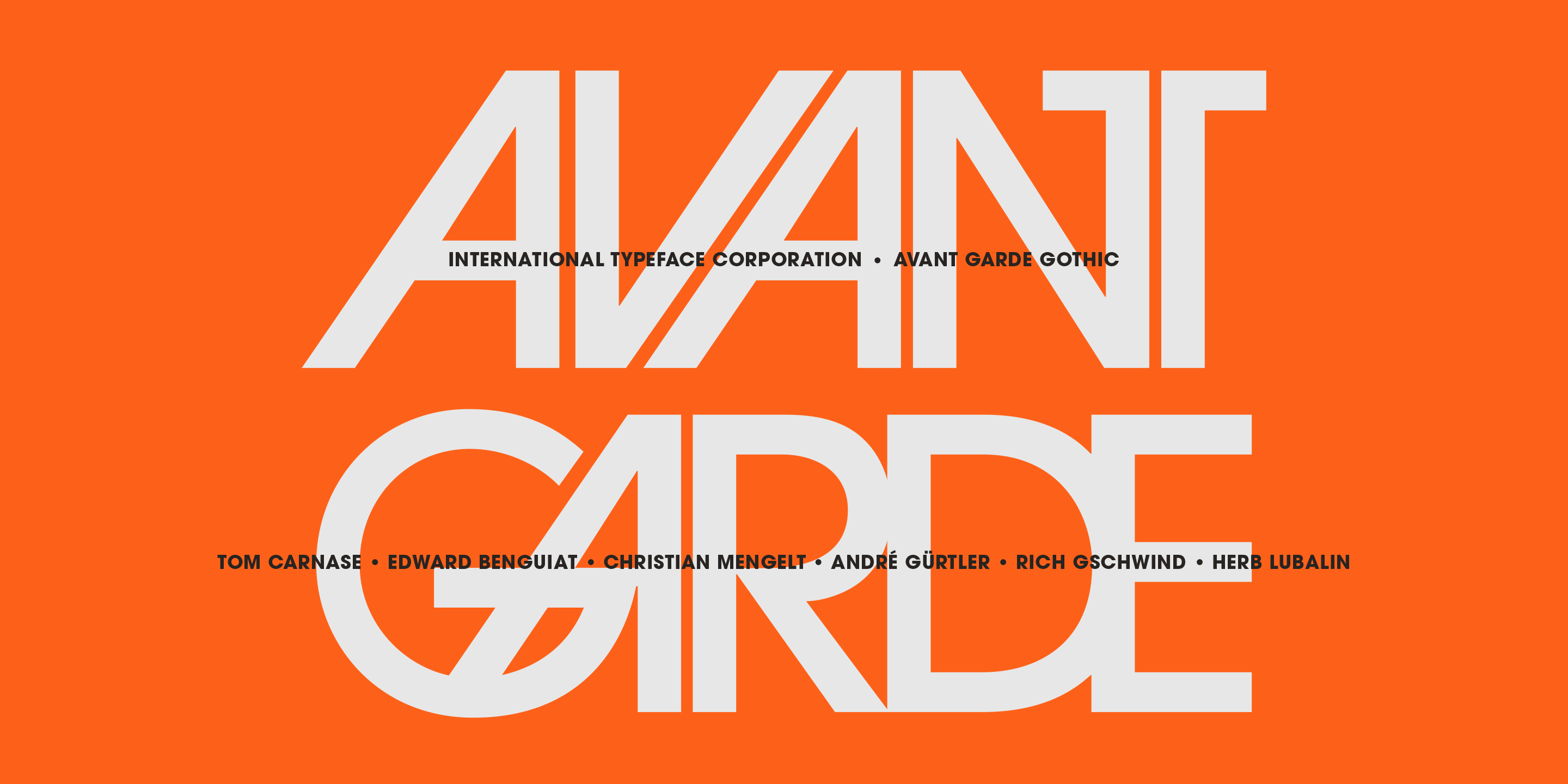
The ITC Avant Garde Gothic Font excels in various design applications including modernist architectural branding, progressive art gallery communications, avant-garde fashion campaigns, contemporary museum exhibitions, innovative technology startups, cutting-edge editorial design, forward-thinking corporate identities, experimental poster art, minimalist web interfaces, and revolutionary brand systems that demand geometric precision and artistic sophistication.
What makes the ITC Avant Garde Gothic Font exciting is its revolutionary interpretation of geometric typography principles that established new standards for modernist design through perfectly balanced circular forms and mathematical precision. This typeface represents a landmark achievement in typographic history, featuring iconic letterforms based on fundamental geometric shapes that create exceptional visual harmony and timeless appeal. The font's avant-garde character makes it perfect for brands seeking to communicate innovation, artistic vision, and progressive thinking through typography that has influenced generations of designers worldwide.
The ITC Avant Garde Gothic Font family typically includes comprehensive weight variations from light to extra bold, featuring corresponding oblique styles and extensive ligature collections that enhance the geometric aesthetic. These family members often include condensed variants, alternate characters, and specialized glyphs that maintain the signature geometric harmony while providing designers with versatile tools for creating sophisticated modernist typography that honors the font's revolutionary heritage.
Design professionals and modernist brands consistently select ITC Avant Garde Gothic Font Free Download for projects requiring typography that embodies artistic excellence and progressive design philosophy. This typeface delivers exceptional performance in contemporary art contexts, architectural communications, and innovative brand development where geometric purity and modernist aesthetics are essential for establishing creative credibility. The font's historic significance makes it particularly valuable for projects celebrating design heritage. Download ITC Avant Garde Gothic Font Free Download today to access this legendary typeface that transforms communications with its geometric perfection and avant-garde sophistication, creating compelling visual experiences that honor modernist design principles while maintaining contemporary relevance.